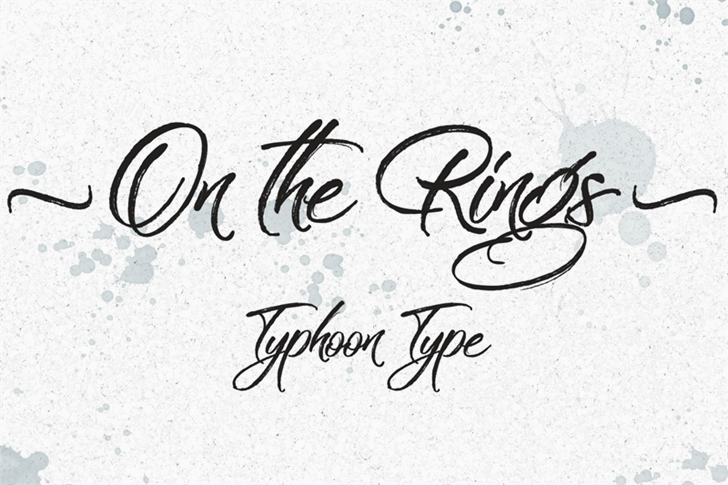
On the Rings Brush Font
Continue to be a new Font Brush. Introducing On the Rings! It is designed by Typhoon Type – Suthi Srisopha. On the Rings is a typical font with such a signature look with natural flow and has the texture inside. This font can make your design look authentic and handcrafted. On the Rings suitable for this use in you for the signature, logotype, invitation cards, quotes art, website header design, packaging, branding and more.